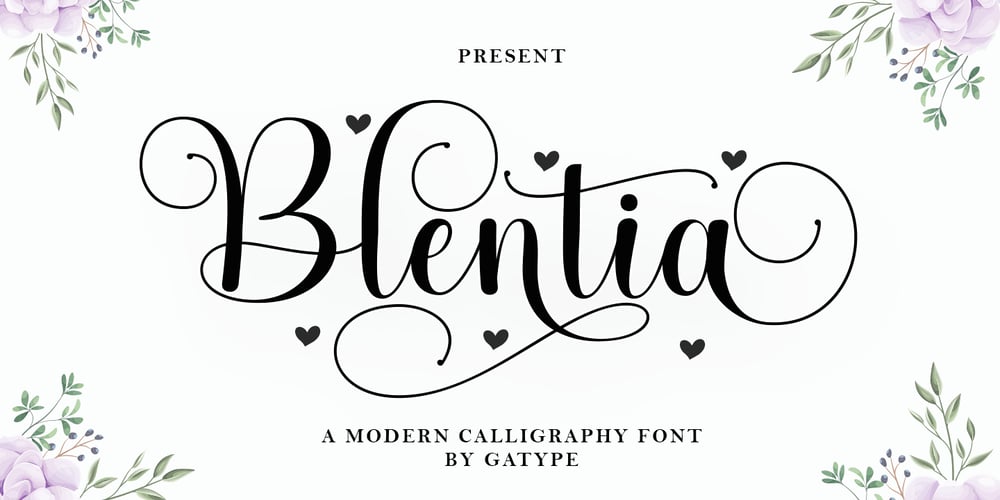
Blentia Font Family was designed by khaidir and published by Gatype. Blentia contains 1 styles and family package options. Blentia is a modern Signature font created in an elegant and professional style with alternate characters. perfect font for creating signature logos and watermarks for photography studios or personal photography logos, best for initial logos or brand signatures. Blentia includes a full set of beautiful handwritten upper and lower case letters, numbers, assorted punctuation marks. All lowercase letters include starting and ending strokes, providing a realistic handwriting style.